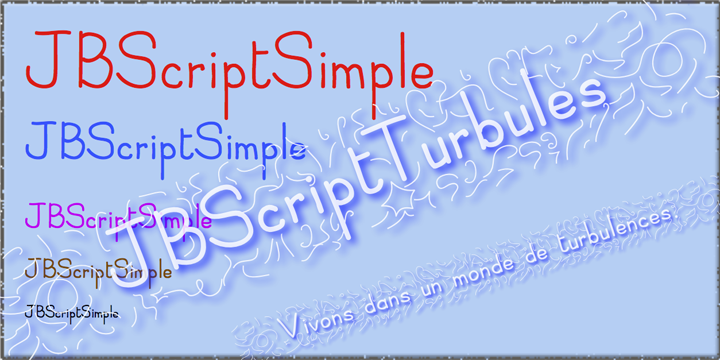
JBScript Font Free Download presents designers with a personalized typeface that embodies handwritten authenticity and signature sophistication with individual character. However, for commercial use, you must purchase this font. You can download it for free for testing purposes only.
JBScript Font excels in personal design applications including signature logo design, handwritten correspondence materials, personal brand identity, boutique business signage, artisan craft labels, custom stationery design, personalized wedding invitations, intimate restaurant branding, creative portfolio headers, and authentic lifestyle campaigns. This distinctive typeface brings personal signature elegance to customized design projects.
What makes JBScript Font truly exciting is its authentic recreation of natural handwriting with flowing letterforms that capture the unique personality and distinctive character of individual penmanship. The font features personal script qualities with signature rhythm and handwritten warmth that convey authenticity, creativity, and the intimate connection of personal communication. Its individual character and signature appeal make it ideal for brands seeking personal touch, artisanal quality, and audiences who value authentic expression, handcrafted aesthetics, and the timeless appeal of personalized communication that reflects individual style.
The JBScript Font family typically includes Regular weight with natural variations and connecting ligatures that enhance its handwritten character. These personal options provide designers with complete signature styling while maintaining the font's distinctive individual elegance and authentic presentation across various personal applications and customized contexts.
Whether you're developing personal branding, creating signature materials, or designing individualized campaigns, JBScript Font Free Download delivers the handwritten authority and personal sophistication that signature-focused projects require. Its exceptional authenticity and individual appeal make it invaluable for designers working with personal brands, artisan businesses, and custom services requiring typography that celebrates personal expression, handwritten tradition, and the unique character that defines individual identity through the beautiful art of personal penmanship and signature style that connects authentically with audiences seeking genuine, personalized experiences.